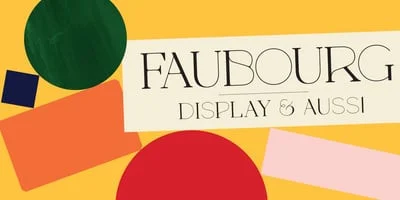
Faubourg Font
Faubourg Font is perfect for luxury Parisian brands, high-end fashion boutiques, sophisticated cultural events, French cuisine restaurants, elegant travel brochures, upscale lifestyle magazines, and refined European-style marketing.
What makes Faubourg Font exciting is its Parisian elegance and European sophistication, featuring refined letterforms that capture the essence of French luxury while delivering timeless visual appeal and continental authenticity.
The Faubourg Font family includes Light, Regular, Medium, Bold, and Black weights, plus elegant variants and French-inspired alternates that enhance the font's sophisticated character and European appeal.
Faubourg Font embodies the timeless elegance of Parisian sophistication and European luxury through masterful typography design. This exquisite typeface captures the refined spirit of French culture and continental style, creating a sophisticated visual language that speaks to audiences who appreciate European elegance, cultural refinement, and the distinctive charm of Parisian lifestyle. The font's elegant character and French appearance make it ideal for luxury brands, cultural institutions, and sophisticated businesses that want to communicate refinement, cultural appreciation, and the enduring allure of European sophistication.
Luxury brands and cultural organizations consistently select Faubourg Font for projects that require authentic European credibility and sophisticated visual appeal. The typeface's refined construction and Parisian personality make it exceptionally effective for fashion houses, fine dining establishments, and cultural venues where elegance and European sophistication are paramount. Each character has been crafted with continental precision to ensure maximum impact across all luxury applications and sophisticated environments.
The cultural advantages of Faubourg Font extend beyond its European appeal to include practical functionality for diverse luxury applications. The font maintains excellent readability in upscale settings while delivering the distinctive character that creates memorable luxury experiences and connects with audiences seeking authentic European refinement. Its comprehensive character set includes cultural symbols and elegant elements that make it particularly suitable for luxury documentation and sophisticated communication.
Fashion boutiques, fine dining restaurants, and cultural organizations frequently choose Faubourg Font because of its ability to instantly convey European sophistication and luxury authenticity. The typeface's Parisian aesthetic helps establish credibility in competitive luxury markets while appealing to customers who value cultural refinement, European style, and the timeless elegance that comes from authentic French sophistication and continental lifestyle appreciation.